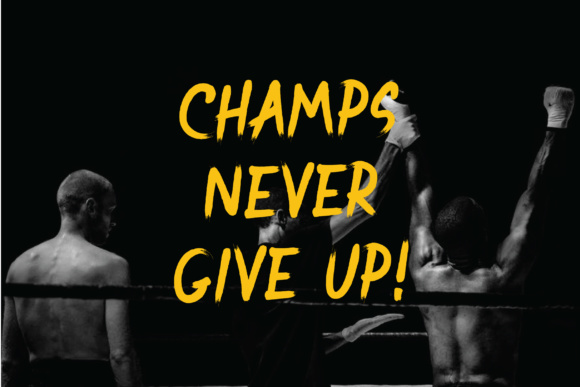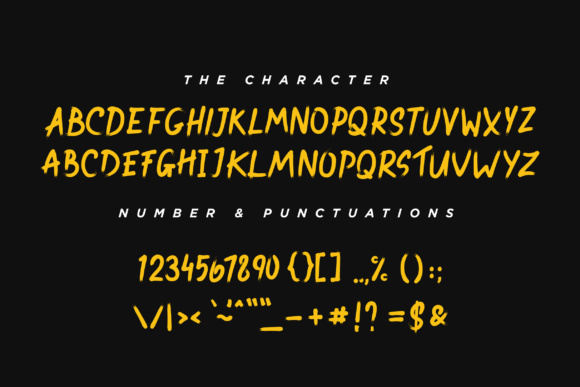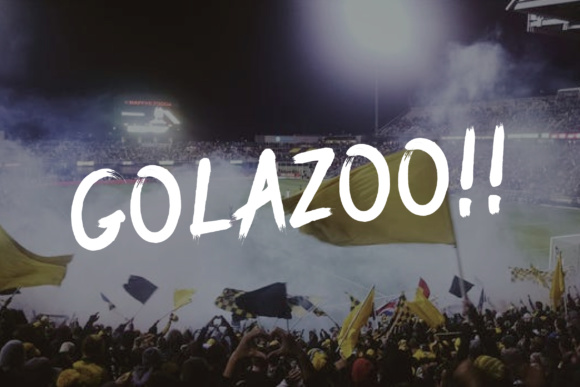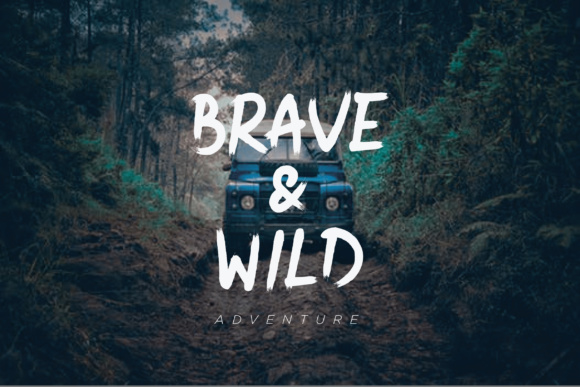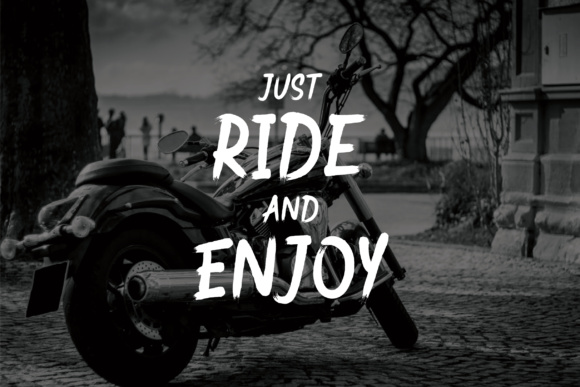
Introducing Brushiva Font: Elevate Your Designs with a Stylish Punch
Are you tired of using the same old fonts in your designs? Look no further than Brushiva, a textured dry brushed font that’s sure to add a stylish punch to your projects. Whether you’re a designer, crafty DIY enthusiast, or simply someone who loves to dabble in creative endeavors, Brushiva is the perfect addition to your font collection.
What is Brushiva Font?
Brushiva is a unique, textured dry brushed font that’s designed to give your designs a relaxed, hip vibe. Its distinctive texture and brush-like strokes make it perfect for use in a variety of design projects, from posters and flyers to social media graphics and website headers.
Key Features of Brushiva Font
- Textured Dry Brushed Effect: Brushiva’s textured dry brushed effect gives it a distinctive, organic feel that’s perfect for adding a touch of personality to your designs.
- Stylish and Modern: Despite its textured effect, Brushiva is a surprisingly modern and stylish font that’s sure to elevate your designs.
- Perfect for Display Use: Brushiva is a great display font, perfect for use in headlines, titles, and other prominent design elements.
- Easy to Read: Despite its stylized effect, Brushiva is surprisingly easy to read, making it perfect for use in a variety of design projects.
Who is Brushiva Font for?
Brushiva font is perfect for a variety of designers and crafters, including:
- Graphic Designers: Brushiva is a great addition to any graphic designer’s font collection, perfect for use in a variety of design projects.
- DIY Enthusiasts: If you love to dabble in DIY projects, Brushiva is a great font to have in your toolkit.
- Social Media Influencers: Brushiva is perfect for social media influencers who want to add a stylish touch to their graphics and posts.
- Web Designers: Brushiva can add a stylish touch to website headers, titles, and other design elements.
How to Use Brushiva Font
Using Brushiva font is easy! Here are a few tips to get you started:
- Use it as a Display Font: Brushiva is perfect for use as a display font, so try using it in headlines, titles, and other prominent design elements.
- Experiment with Colors: Brushiva looks great in a variety of colors, so don’t be afraid to experiment and find the perfect hue for your design.
- Pair it with Other Fonts: Brushiva pairs well with a variety of other fonts, so try experimenting with different combinations to find the perfect look for your design.
Why Choose Brushiva Font?
So why choose Brushiva font? Here are just a few reasons:
- Unique and Stylish: Brushiva is a unique and stylish font that’s sure to add a touch of personality to your designs.
- Easy to Use: Brushiva is easy to use and can be incorporated into a variety of design projects.
- Versatile: Brushiva is a versatile font that can be used in a variety of design projects, from posters and flyers to social media graphics and website headers.
In conclusion, Brushiva font is a stylish and versatile font that’s perfect for designers, crafters, and DIY enthusiasts. Its textured dry brushed effect gives it a distinctive, organic feel that’s perfect for adding a touch of personality to your designs. Whether you’re looking to create a stylish poster, social media graphic, or website header, Brushiva is the perfect font for the job.